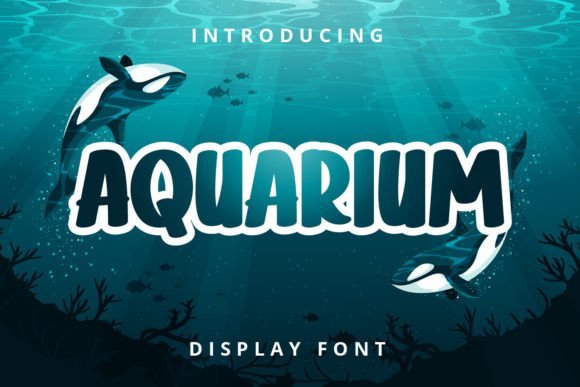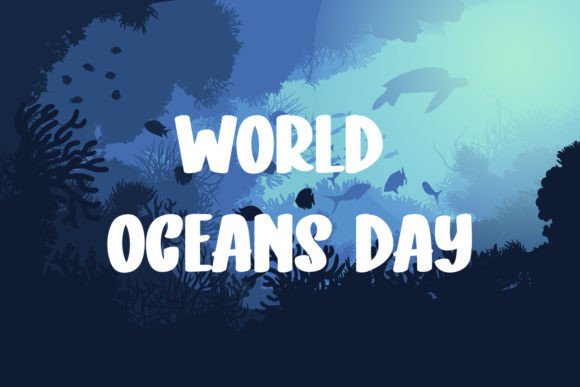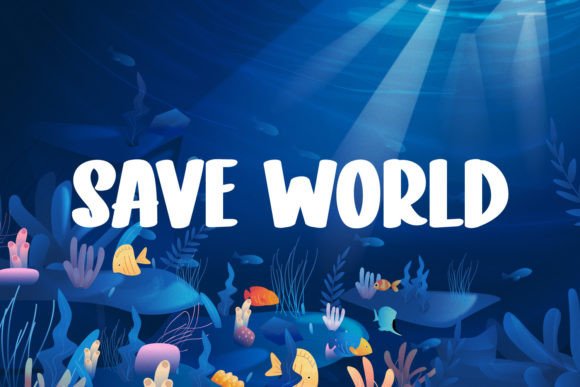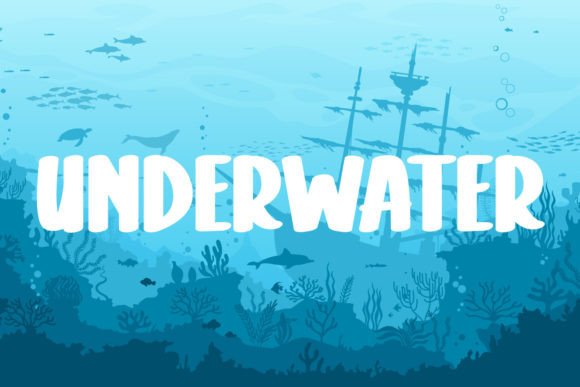
Aquarium Font: Bringing Joy to Your Designs
Do you remember the excitement of creating a school project or designing a poster for a children’s event? The thrill of combining colors, shapes, and fonts to convey a message or tell a story is a feeling that never gets old. For designers, it’s this exact moment of creative freedom that makes their job so rewarding.
When it comes to bringing a sense of playfulness and authenticity to your designs, one font stands out from the rest: Aquarium Font. This charming display font is specifically designed for children’s activities and school projects, making it the perfect choice for anyone looking to add a touch of whimsy to their work. With its handwritten feel and fun, carefree vibe, Aquarium Font is a valuable addition to any designer’s toolkit.
Whether you’re working on a children’s book, a marketing campaign, or a school project, Aquarium Font is sure to bring a smile to your face and a sense of excitement to your designs.
Aquarium Font Key Features
- Unique Characteristics: Aquarium Font features a distinctive, hand-drawn design with a playful, whimsical feel, making it perfect for creative projects that require a touch of personality.
- Font Style: Aquarium Font is available in Regular, Bold, Italic, and Bold Italic styles, providing flexibility for designers to choose the perfect look for their project.
Aquarium Font Review
I recently had the chance to work with the Aquarium Font and I must say, it’s been an interesting experience. There are a few things that I really like about it.
- Unique Style**: Aquarium Font has a truly one-of-a-kind design that stands out from the crowd. The combination of rounded shapes and bold lines creates a visually appealing look.
- High-Quality Renditions**: The font renders beautifully in various sizes and resolutions, making it perfect for both digital and print media.
However, there are some limitations that I’d like to mention.
- Limited Character Set**: Aquarium Font has a relatively small character set, which may limit its usability for longer texts or complex content.
- Not Ideal for Small Text**: While the font looks great in larger sizes, it can become difficult to read when used in smaller text sizes.
Overall, Aquarium Font is a great choice for projects where you want to make a statement and add some visual interest. Just be mindful of its limitations and use it in contexts where it will shine.
Aquarium Font: A Practical Application Guide
Tips for Getting the Most Out of the Aquarium Font
Use the Aquarium Font to add a touch of elegance and sophistication to your designs.
Experiment with different font sizes, colors, and styles to create unique and eye-catching graphics.
Combine the Aquarium Font with other design elements, such as images and graphics, to create a visually appealing design.
The Aquarium Font is perfect for:
Corporate branding and marketing materials
Photography and art portfolios
Any design project where a touch of elegance and sophistication is required
Alternatives to Aquarium Font for Designers
Pacifico is a beautiful, elegant script font that works well for headings and titles. It’s perfect for creating a luxurious and sophisticated look. When to use: For formal invitations, luxury brand logos, and high-end advertising campaigns. It’s a more elegant and refined alternative to Aquarium Font, with a more classic feel.